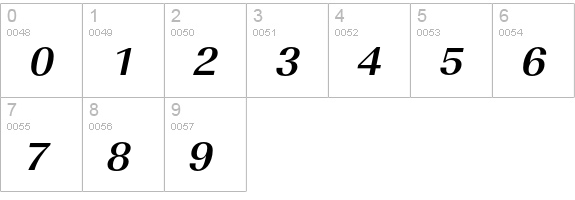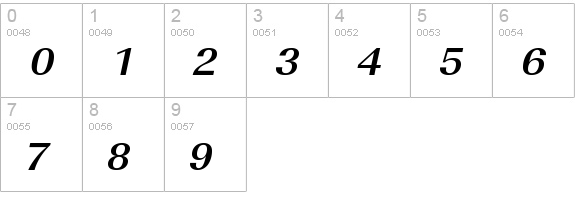
URWImperialTOTExtWid Bold Oblique Font Details
URWImperialTOTExtWid Bold Oblique is a strong, high-contrast, italic variant in the URWImperialTOTExtWid typeface family \xE2\x80\x94 well suited to headlines, attention-grabbing titles, and strong calls-to-action.
URWImperialTOTExtWid Bold Oblique font is a stylish and bold typeface that exudes confidence and sophistication. Its oblique style adds a touch of elegance, making it perfect for a wide range of design projects. Whether you're working on branding, advertising, editorial design, or any other creative endeavor, this font is sure to make a statement. What makes URWImperialTOTExtWid Bold Oblique font even more appealing is that it is available for free download at FontsMarket.com. This means you can easily access and use this high-quality font without any cost, making it a valuable addition to your font collection. Don't miss out on the opportunity to enhance your designs with this versatile and eye-catching font today!